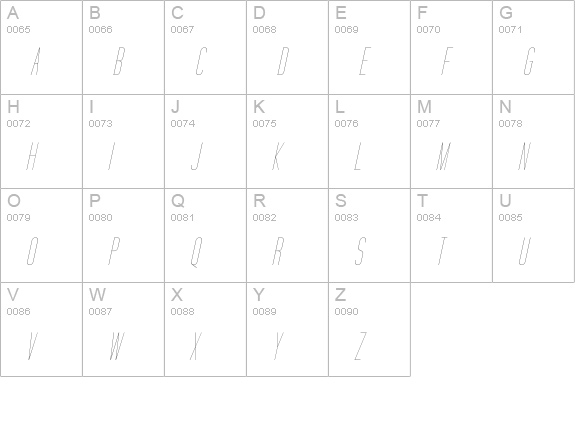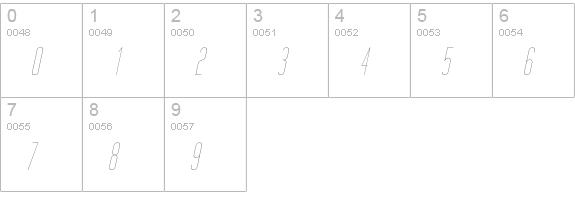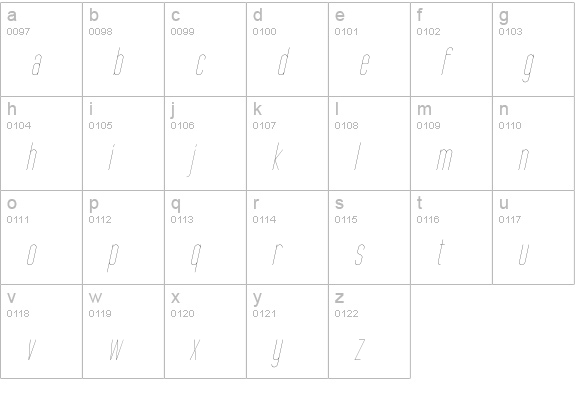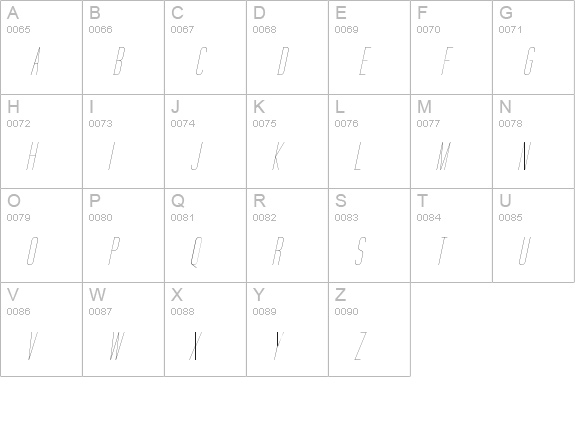
Tall Films Fine Oblique Font Details
Tall Films Fine Oblique is a distinctive, italic variant in the Tall typeface family \xE2\x80\x94 well suited to design and typography projects.
Tall Films Fine Oblique font is a sleek and modern typeface that exudes elegance and sophistication. Its tall and slender letterforms are expertly crafted to bring a sense of style and class to any design project. The fine oblique angle adds a touch of dynamism and flair, making this font a perfect choice for fashion, luxury, and editorial designs. What sets Tall Films Fine Oblique font apart is not just its striking aesthetics, but also the fact that it is available for free download at FontsMarket.com. That's right, you can elevate your designs with this premium font without having to spend a dime. Whether you're working on a branding project, a magazine layout, or a website design, Tall Films Fine Oblique font will add a touch of sophistication and finesse to your work. Download it now and let your creativity soar!